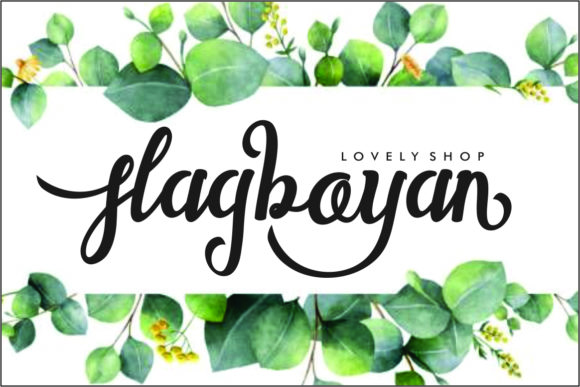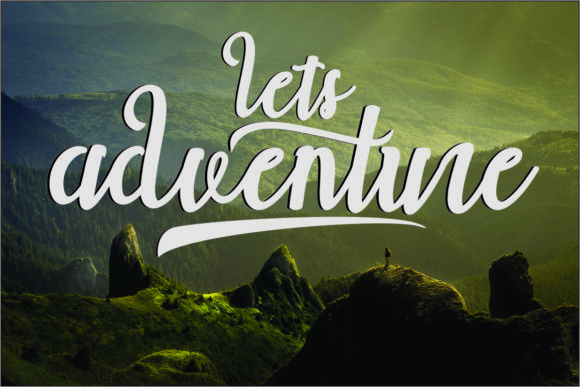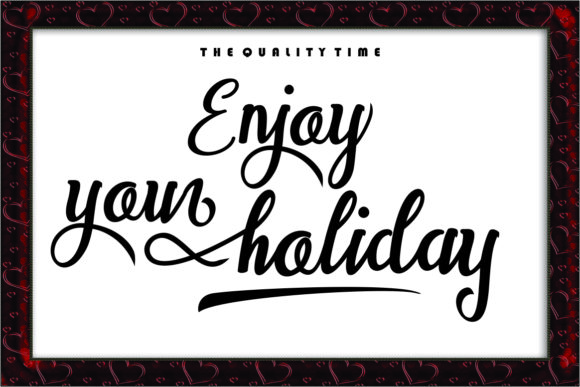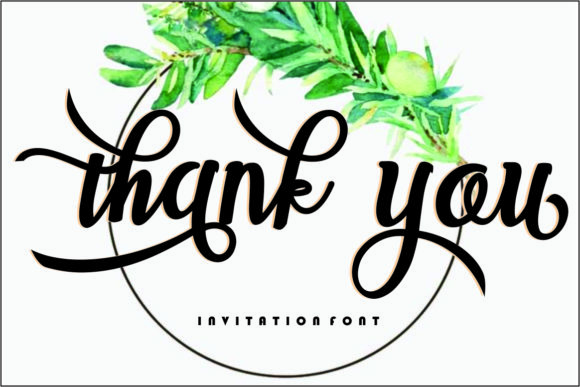
London Script Font
About London Script Font
The London is a handcrafted typeface. All characters have an imperfect shape that will give a natural look to your designs.